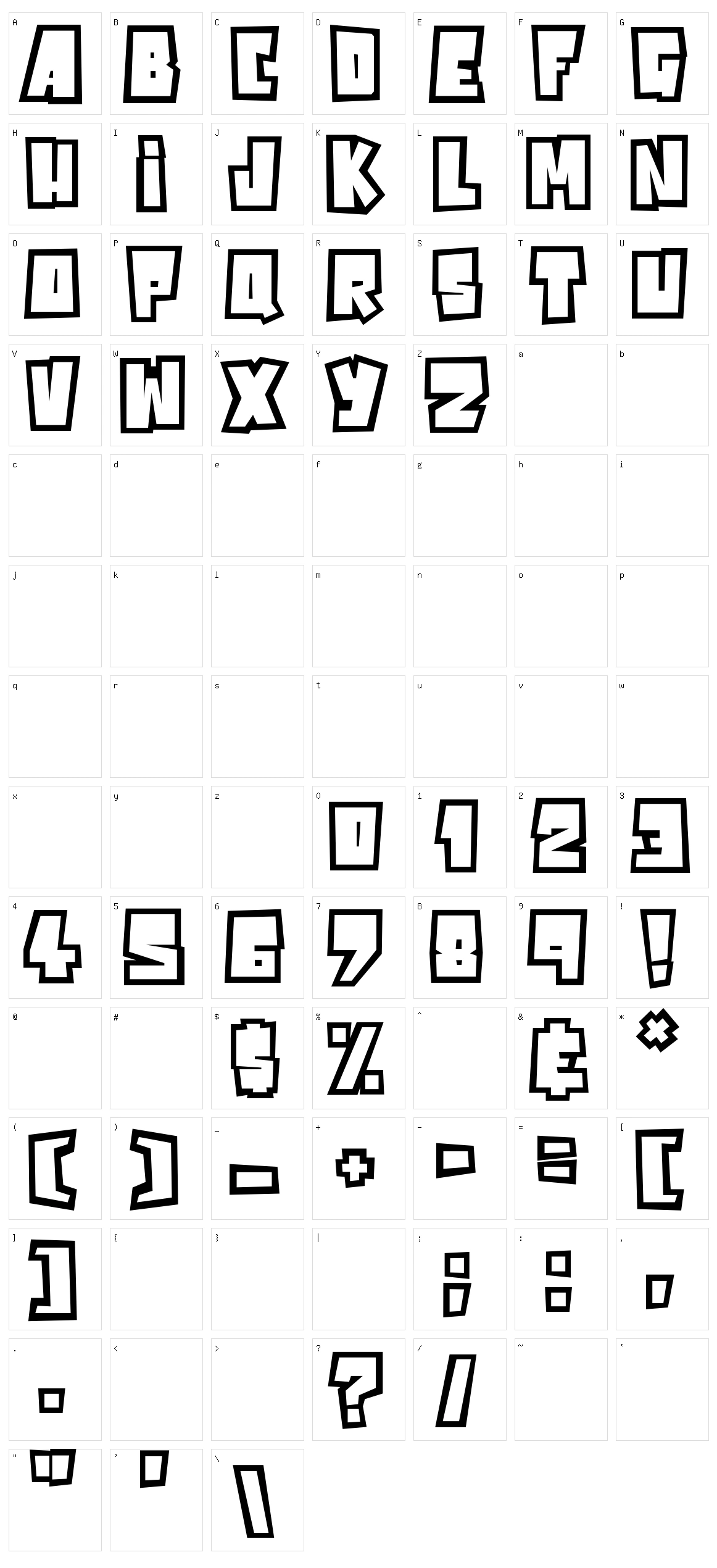
The free font Powerful is carefully designed by imagex, showcasing a thoughtful balance of creativity and usability and falls under the Cartoon font style. When you download the ZIP file, it contains only 6.77 KB of font files, making it lightweight and quick to download. Please review the license details below to understand permitted usage and distribution rights. If license information is not available, we recommend using this font for personal projects only or contacting the author directly for commercial usage permissions.